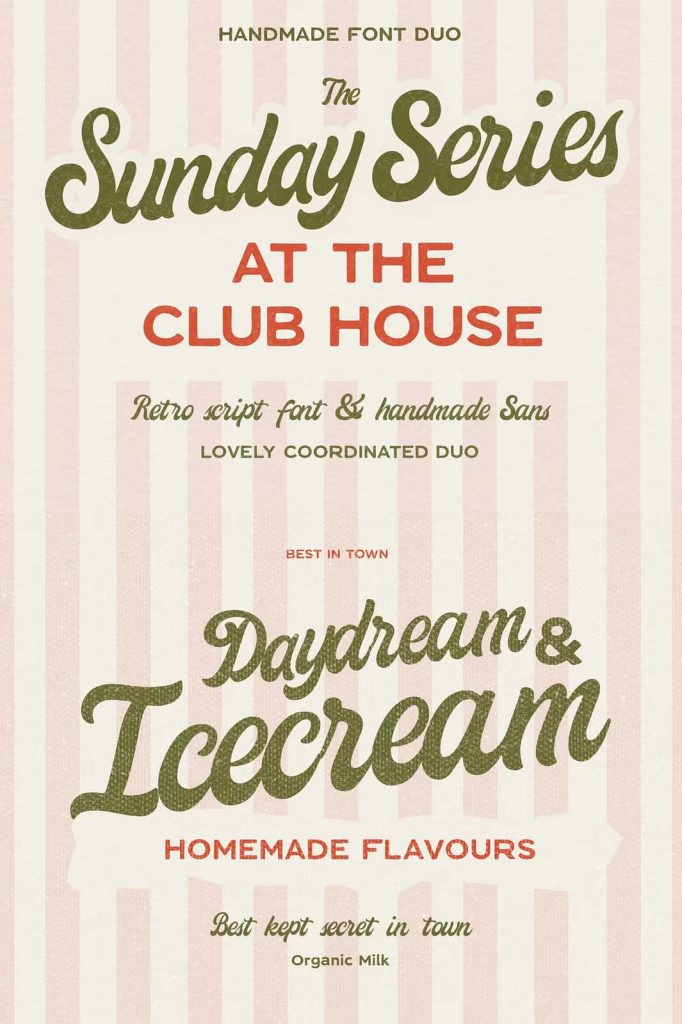
The Sunday Series & Club House Font Duo: Retro Elegance Meets Modern Versatility
The Sunday Series & Club House Font Duo is a sophisticated yet approachable typeface set that blends retro warmth with modern craftsmanship. Designed to evoke the charm of vintage leisure clubs, handwritten signs, and laid-back Sunday mornings, this duo captures both nostalgia and contemporary appeal. The combination of a clean, versatile sans-serif and a romantic, flowing script makes it the perfect choice for branding, packaging, apparel, invitations, and social media designs.
This font duo invites designers to express both structure and soul within a single project. With its blend of handmade authenticity and professional polish, The Sunday Series & Club House delivers a timeless look that adapts beautifully across different styles and industries.
A Perfect Balance Between Style and Substance
The beauty of The Sunday Series & Club House Font Duo lies in its dynamic contrast. The sans-serif font offers clarity, versatility, and balance—ideal for logos, titles, and clean layouts—while the accompanying script adds a touch of romance and personality. Together, they create visual harmony that feels both modern and familiar. This combination works seamlessly for lifestyle brands, boutique businesses, cafes, fashion labels, and event design.
Whether you are designing a wedding invitation that feels personal and elegant or creating brand packaging that evokes craftsmanship and quality, this duo provides the tools to make your design stand out. The clean sans gives structure and readability, while the script adds emotion and flair, allowing your message to resonate with timeless charm.
Inspired by Vintage Leisure and Handmade Craft
The Sunday Series & Club House draws inspiration from mid-century design aesthetics—when sports clubs, coffee shops, and handwritten signage captured the essence of relaxed sophistication. The designers have taken that nostalgic spirit and infused it with modern proportions and refined details, making it relevant for today’s creative world. Each curve and stroke reflects the careful craftsmanship of handmade lettering, offering a design that feels both organic and elegant.
The slightly imperfect touches, combined with smooth lines and balanced spacing, bring warmth and authenticity to digital and print compositions alike. This is a font set that feels equally at home on premium apparel tags or chic café menus.
Endless Creative Possibilities
With The Sunday Series & Club House Font Duo, creativity knows no limits. The fonts can be used individually or paired together to produce beautiful visual contrasts. Use the sans for headers, subheadings, and minimalist branding, and the script for accent text, taglines, or personal signatures. When combined, they form a visual rhythm that feels both structured and expressive.
- Perfect for branding: Craft memorable logos with a retro yet timeless appeal.
- Elegant packaging: Add handmade charm to skincare, coffee, or lifestyle product labels.
- Stylish apparel: Ideal for embroidery, t-shirt prints, and label design.
- Editorial design: Create captivating magazine covers and social media posts.
- Event materials: Design wedding invitations, menus, and stationery that feel refined and personal.
Each typeface in the duo complements the other beautifully, allowing you to experiment with balance, tone, and hierarchy. The sans-serif provides stability and simplicity, while the script infuses character and emotion—making your design projects more dynamic and memorable.
Authentic Texture and Craftsmanship
Every detail in The Sunday Series & Club House Font Duo has been crafted to mimic the natural rhythm of hand lettering. The subtle imperfections give the typefaces depth and soul, ensuring that even digital designs feel tactile and human. This sense of handmade craftsmanship makes the duo ideal for creative projects that celebrate authenticity and artistry.
From the curves of the script to the geometric precision of the sans, both fonts work together to deliver a distinctive aesthetic that’s equally polished and personal. Whether your goal is to evoke a vintage sports club atmosphere or a luxurious lifestyle brand identity, this font duo adapts effortlessly.
Designed for Today’s Creators
Modern designers crave fonts that tell a story—and The Sunday Series & Club House Font Duo does exactly that. With its retro-inspired shapes and modern refinements, it bridges the gap between nostalgia and contemporary design trends. Its versatility makes it perfect for digital use, print layouts, apparel, and branding campaigns. You can easily combine both fonts to achieve balance, elegance, and a handcrafted touch that elevates any visual concept.
Key Features
- Includes a clean sans-serif and a romantic script for diverse design use.
- Inspired by vintage country club aesthetics and slow Sunday mornings.
Let The Sunday Series & Club House transform your creative work with a unique balance of handmade warmth and modern style. Elevate your visual storytelling and give every project a distinctive signature that truly stands out.